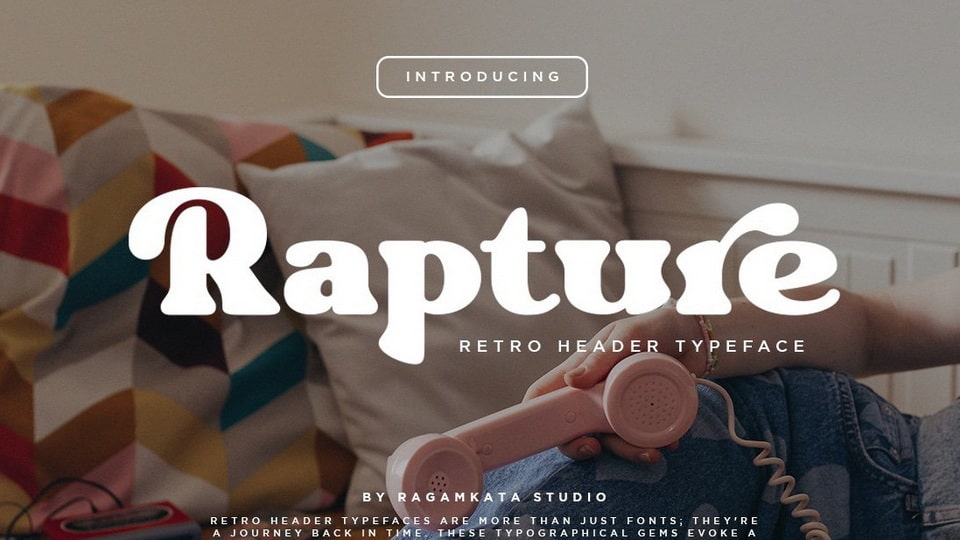
Download Rapture font, a retro display serif typeface that exudes a classic charm and bold character thar brings an elegant touch and evokes a sense of the past.